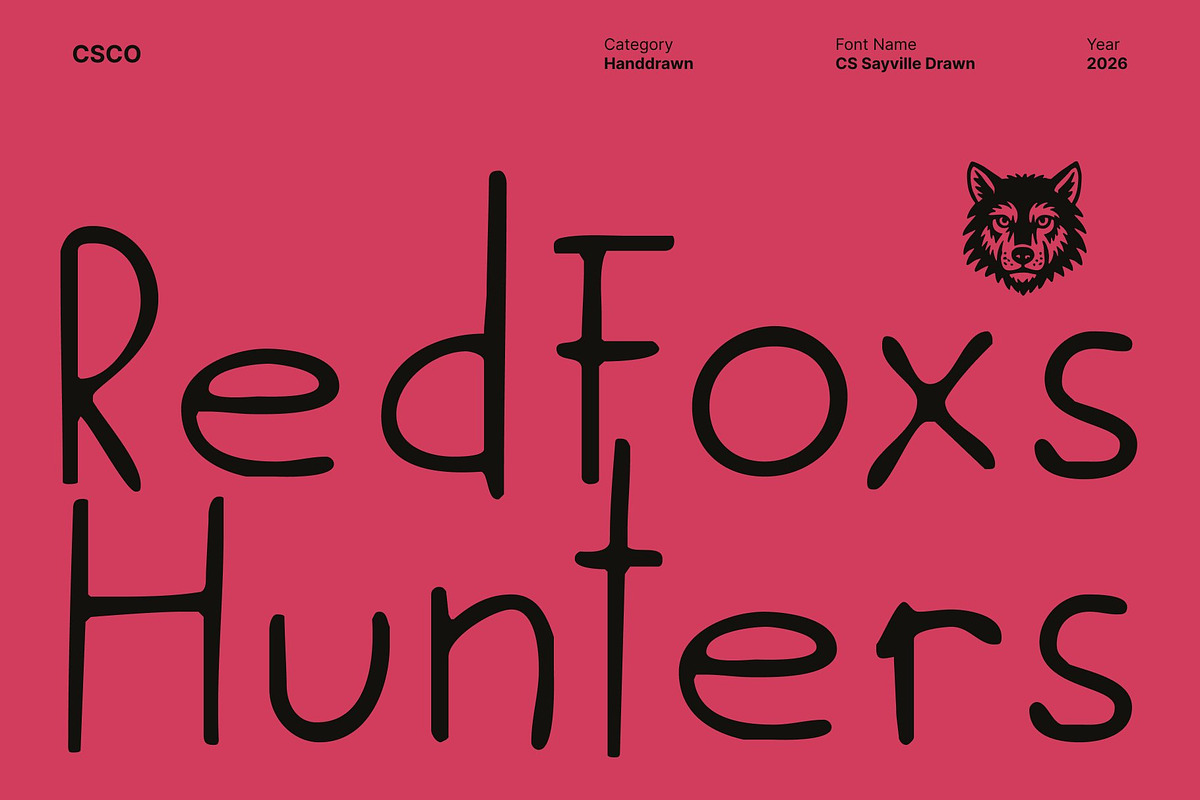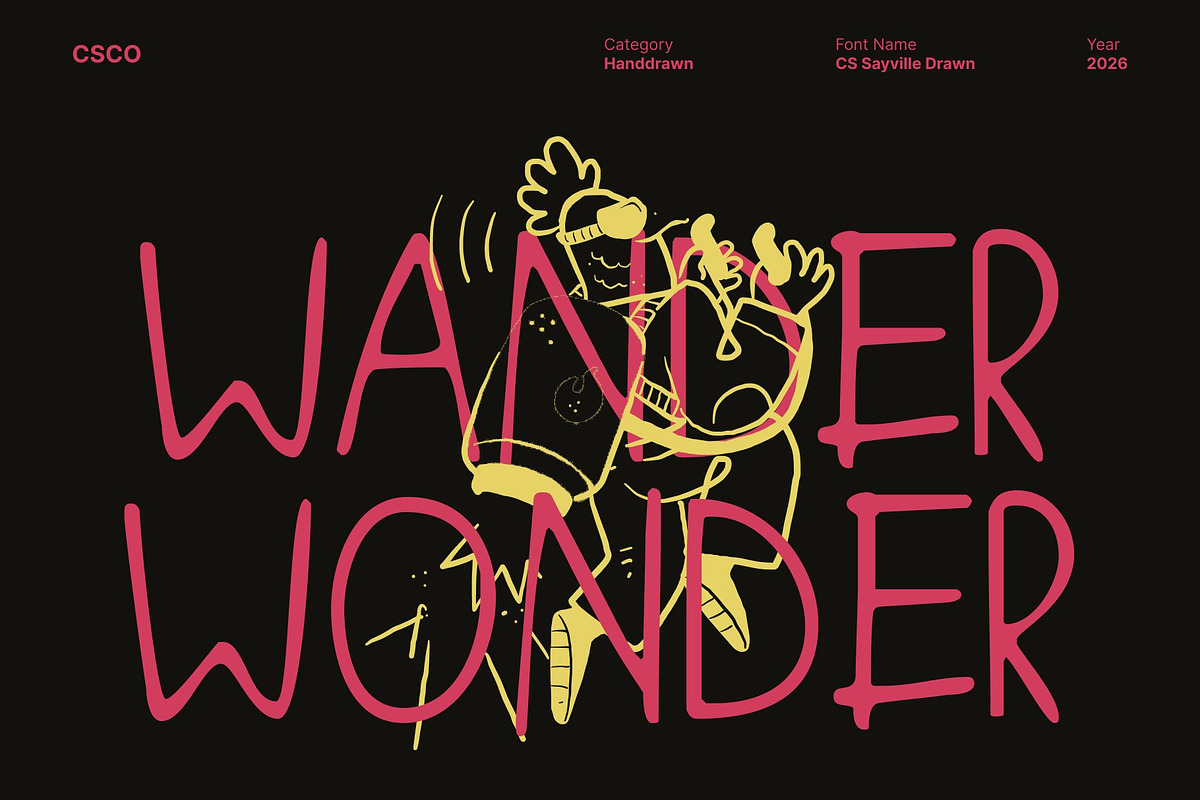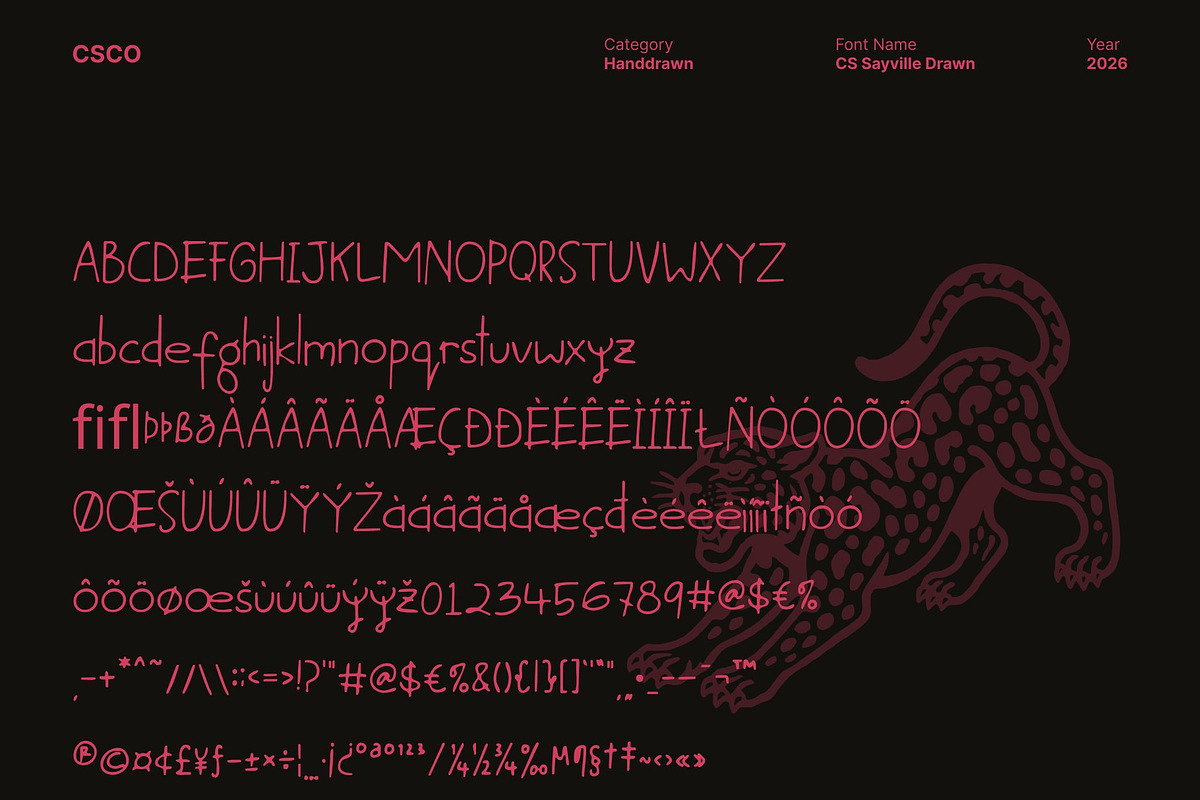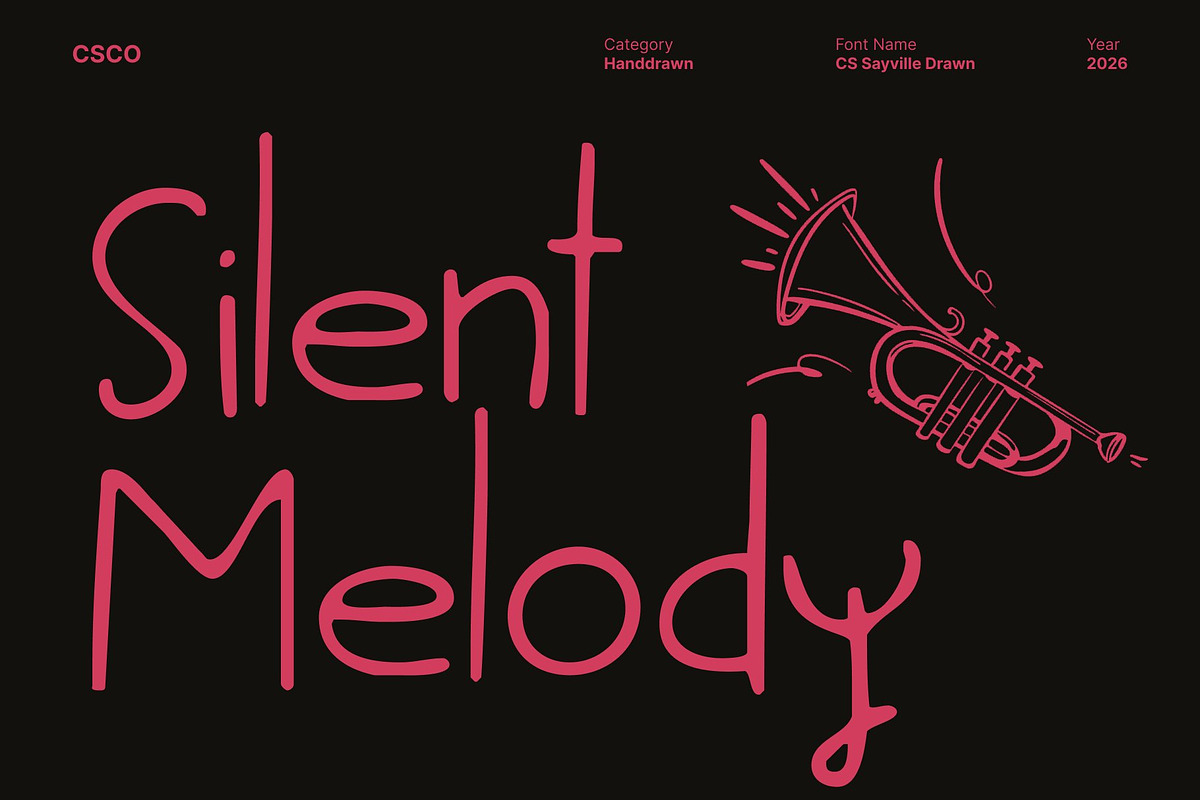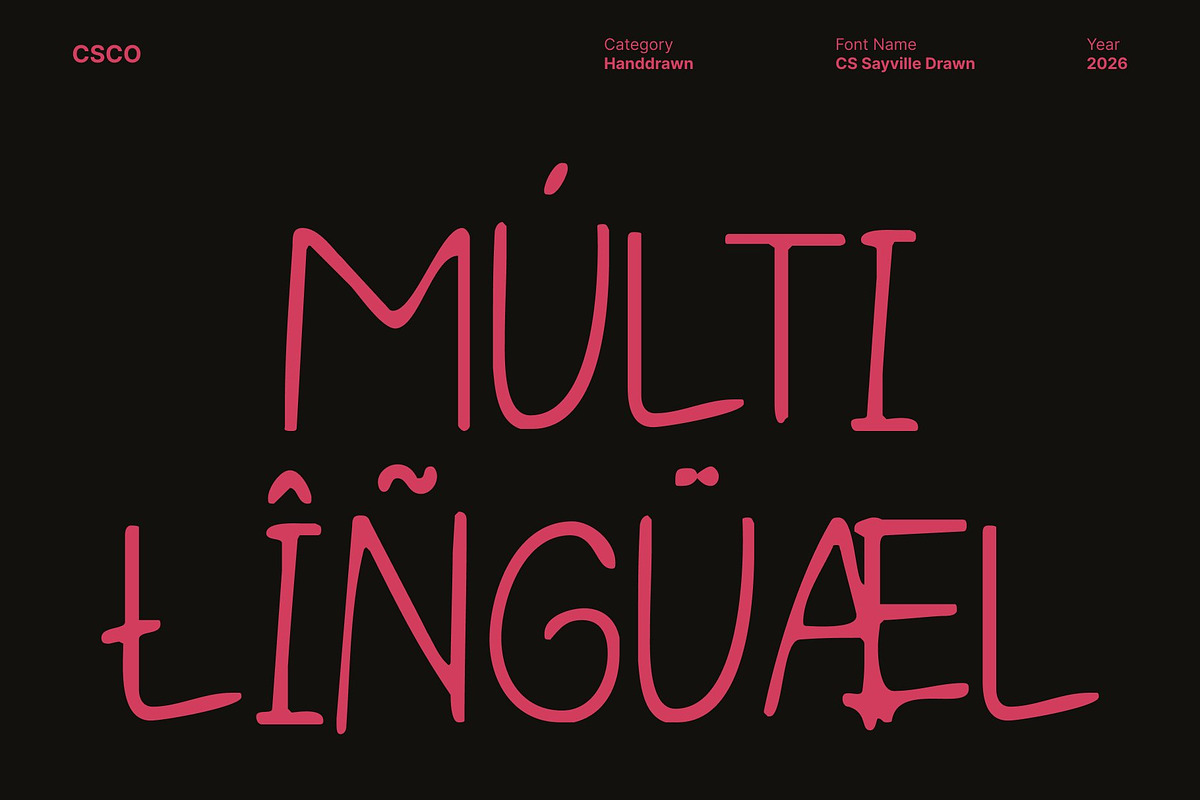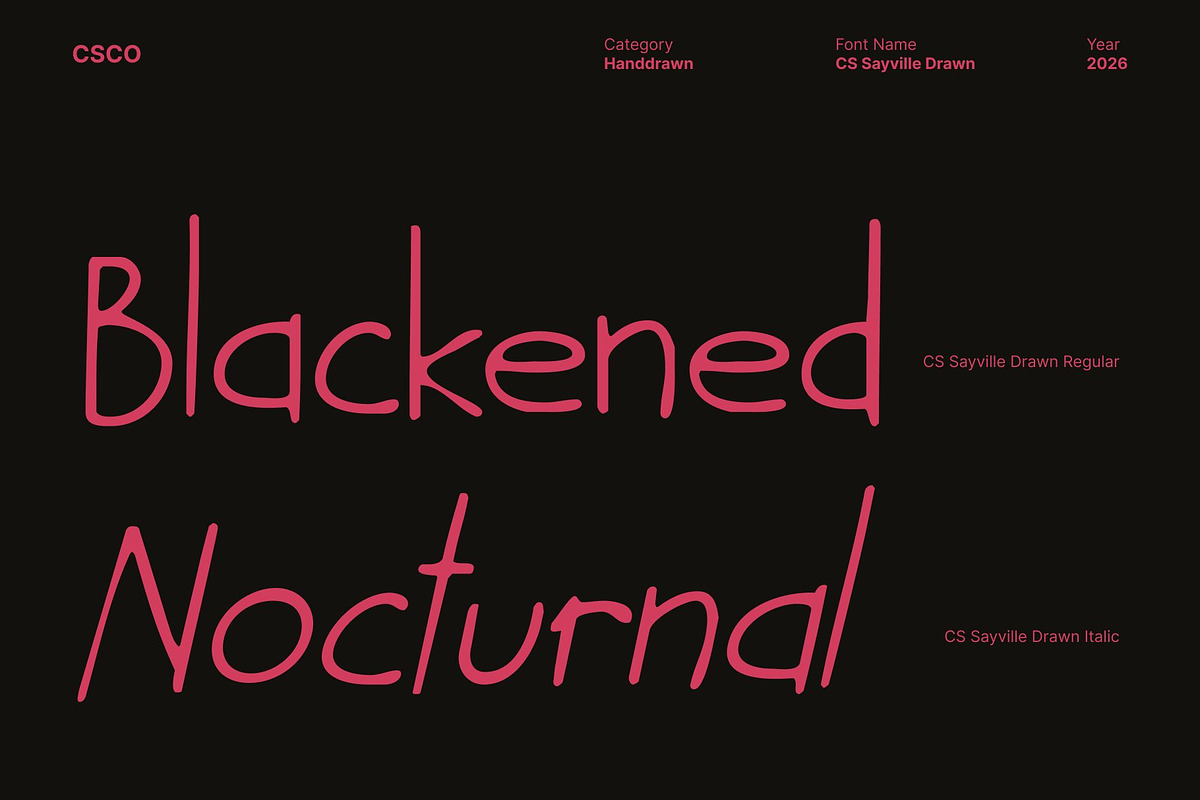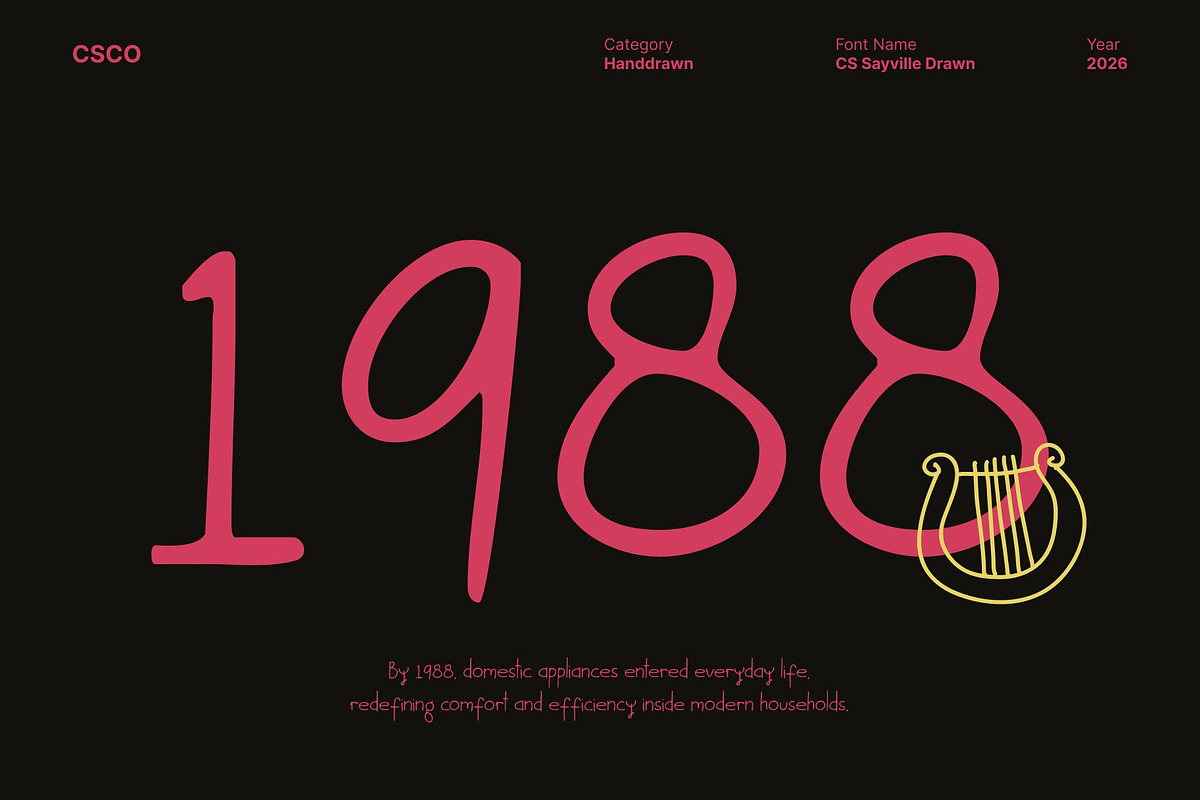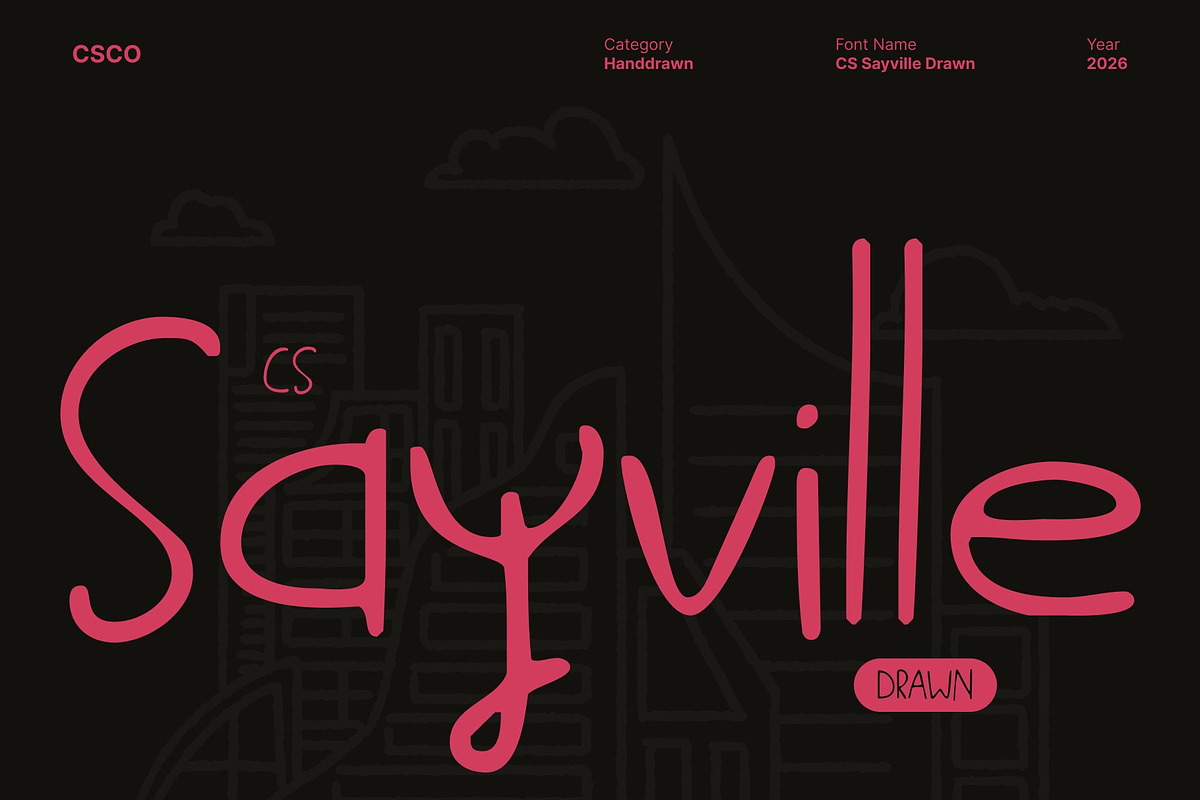
CS Sayville Drawn
CS Sayville Drawn – Casual Sweet Meets Modern Clarity
Handwriting-Inspired Sans Serif Style This is a handwriting-inspired sans serif font that blends casual, flowing strokes with the clean structure of modern typography. Its soft curves and drawn details give each letter a natural, friendly personality, creating a look that feels warm, relaxed, and visually pleasing.
Balanced Design for Comfortable Readability Designed with balance in mind, this font maintains excellent readability while preserving a gentle handwritten charm. The structured sans serif foundation ensures clarity, while the subtle drawn texture adds character without distraction. This harmony makes it ideal for both short messages and longer text.
Versatile for Creative and Everyday Projects This font adapts effortlessly to branding, quotes, invitations, posters, packaging, and digital content. Its approachable aesthetic enhances both personal and commercial designs, offering flexibility for a wide range of creative needs.
Expressive Personality with Modern Appeal The soft handwritten accents bring authenticity and expression to every layout. Perfect for designs that aim to feel stylish yet friendly, this font elevates everyday typography with charm, warmth, and modern elegance.
- CS Sayville Drawn Regular
- CS Sayville Drawn Italic